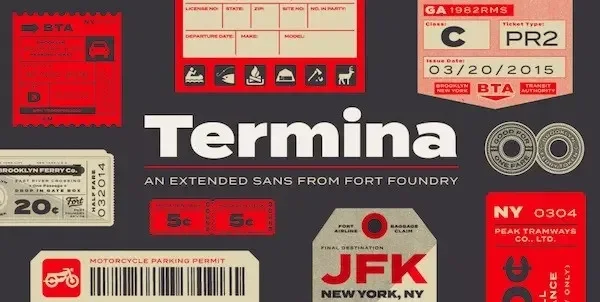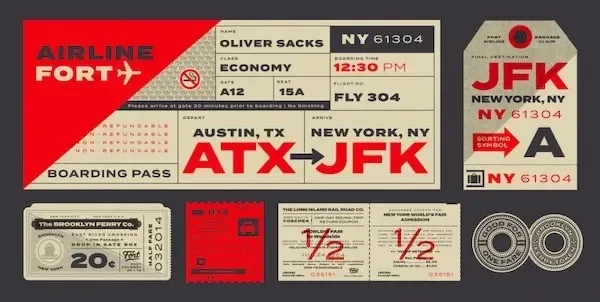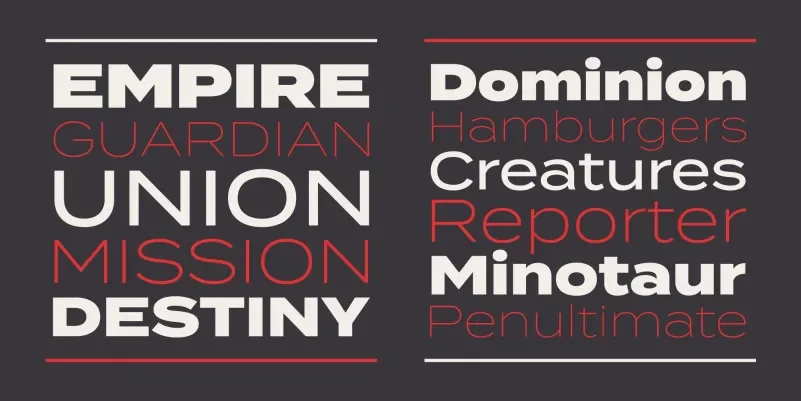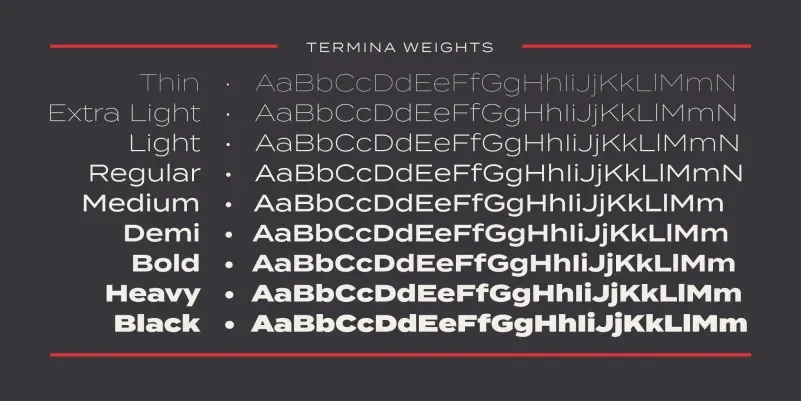
Termina Font makes a big impression literally. With its wide proportions and high x height, it's designed to look equally good in bold headlines and tight captions. Created by Mattox Shuler and released through Fort Foundry in 2015, Termina isn’t your average geometric sans, it’s broad, confident, and exceptionally readable. Use it on posters, websites, or identity work when you want something clean but with personality.
Designer: Mattox Shuler (Fort Foundry)
Released: 2015
Style: Wide geometric grotesque sans serif
A hefty family of 9 weights from Thin to Black
Wide letterforms with high x-height, ensuring excellent readability
Robust OpenType features: small caps, old-style numbers, stylistic alternates, fractions, superscripts/subscripts. Full language support across Latin script, 743 glyphs per weight
Termina thrives in bold, confident layouts ideal for poster headlines, brand identity, wayfinding, and editorial pull-quotes. Pair it with minimalist sans-serifs like Roboto or rounded fonts like Nunito for clean contrast. It also plays nicely with classic serifs for a modern editorial mix.